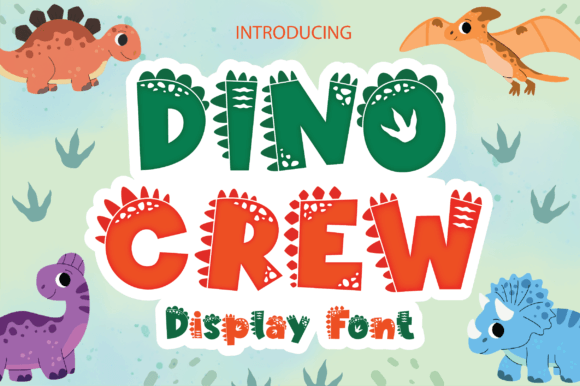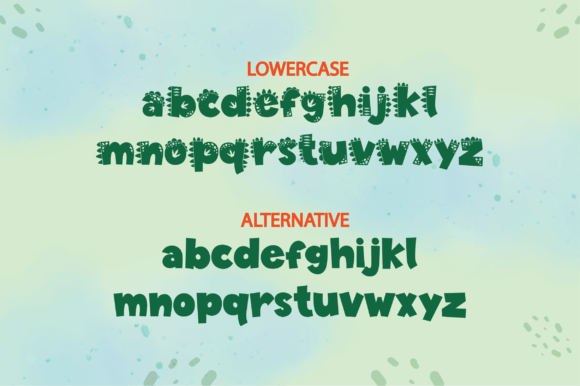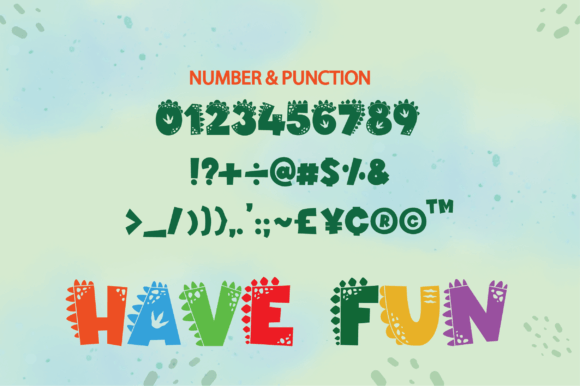
Bringing Dinosaurs to Life: The Joy of Dino Crew Font
Have you ever been working on a design project and suddenly, a spark of creativity strikes? The idea hits, and you can’t wait to bring it to life. For many designers, this moment is a rush of excitement and inspiration. And for those who love working with children’s designs, there’s one font that’s sure to bring a smile to their face: the Dino Crew Font.
This playful and whimsical decorative font is perfect for designs aimed at kids or the young at heart. Its cheerful and colorful appearance is sure to bring a sense of fun and joy to any project, making it ideal for book covers, posters, invitations, and more. As a designer, having access to a versatile font like Dino Crew Font can be a game-changer, allowing you to create unique and engaging designs that stand out from the crowd.
Dino Crew Font Key Features
- Unique Characteristics: The Dino Crew Font features a fun, playful, and prehistoric-inspired design, making it perfect for creating eye-catching and engaging content.
Dino Crew Font Review
Overall, I’m impressed with the Dino Crew Font – it’s quirky, fun, and perfect for a prehistoric-themed project. ✨ The font’s rounded edges and bold lines give it a playful feel that’s sure to engage your audience.
The font is highly customizable, allowing you to adjust the size, color, and spacing to suit your design needs. ✨ It’s also incredibly versatile, suitable for a wide range of projects, from children’s books to advertising campaigns.
While the font has its strengths, there are a few limitations to consider:
- ⚠️ Limited support for special characters and languages, which may cause issues for international projects.
- ⚠️ Some users may find the font’s bold lines and rounded edges too playful or childish for certain designs.
- ⚠️ The font may not be suitable for projects that require a more formal or professional tone.
Despite these limitations, I think the Dino Crew Font is a great addition to any designer’s toolkit. With a little creativity and experimentation, you can use this font to create some truly memorable designs.
Tips for Getting the Most Out of Dino Crew Font
For best results, use Dino Crew Font in bold or italic styles to add emphasis to your text.
Experiment with different font sizes and combinations to create visually appealing designs.
Dino Crew Font is ideal for:
- Children’s book illustrations and design.
- Fun and playful advertising campaigns.
- Education and learning materials.
Alternatives to Dino Crew Font for Designers